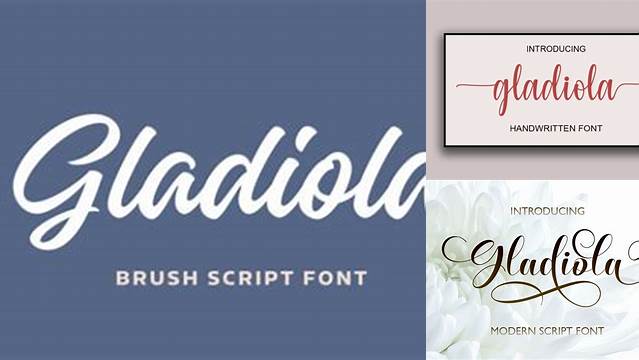
Hey guys! Are you on the hunt for that perfect gladiola brush script font to add a touch of elegance and personality to your projects? Well, you've landed in the right place! We're diving deep into the world of Gladiola brush script fonts, exploring everything from what makes them so special to where you can snag them for free. Let's get started and unleash your creative potential with this beautiful typeface! Finding the right font can be a game-changer, especially when you're aiming for a handcrafted, artistic vibe. The gladiola brush script font is renowned for its flowing lines and natural strokes, making it ideal for a variety of design applications. Whether you're working on wedding invitations, branding materials, or social media graphics, this font can add that perfect touch of sophistication and charm. So, stick around as we explore the ins and outs of this fantastic font and how you can make the most of it in your creative endeavors.
What is Gladiola Brush Script Font?
The gladiola brush script font is a typeface that mimics the look of hand-lettering done with a brush. It's characterized by its smooth, flowing strokes and elegant curves, which give it a natural and personal feel. Unlike more rigid fonts, a gladiola brush script font brings a sense of warmth and authenticity to any design. Think about those handwritten notes you cherish – the gladiola brush script font captures that same essence. This makes it perfect for projects where you want to convey a sense of intimacy and care. Imagine using it for thank-you cards, personalized gifts, or even your own signature. The versatility of this font means it can elevate a wide range of projects, adding a touch of class and creativity that’s hard to resist. Plus, with the availability of free options, it’s easier than ever to incorporate this stunning font into your designs without breaking the bank.
History and Evolution of Brush Script Fonts
The history of brush script fonts is fascinating! It traces back to traditional calligraphy and hand-lettering techniques. Over time, these techniques were adapted into digital fonts, allowing designers to replicate the handcrafted look on computers. The gladiola brush script font is part of this evolution, embodying the fluidity and expressiveness of calligraphy. Brush script fonts gained popularity in the mid-20th century, particularly in advertising and signage. Their casual yet stylish appearance made them a hit for conveying a sense of personality and flair. As technology advanced, designers began experimenting with different brush strokes and textures, leading to a diverse range of brush script fonts, including the elegant Gladiola. Today, the gladiola brush script font continues to be a favorite among designers for its versatility and timeless appeal. Its ability to blend traditional charm with modern design sensibilities makes it a valuable asset in any creative toolkit. The journey of brush script fonts from ink and paper to digital screens is a testament to the enduring allure of handcrafted aesthetics.
Key Features of Gladiola Brush Script Font
What makes the gladiola brush script font stand out? It's all about the details! This font boasts smooth, flowing lines that mimic the natural movement of a brush. Its elegant curves and varying stroke widths create a dynamic and eye-catching effect. The gladiola brush script font often includes ligatures and alternate characters, adding to its handcrafted feel. Ligatures are those beautiful connections between letters, while alternate characters offer different stylistic options for certain letters. These features give you more flexibility and control over the final look of your text. Another key feature is its legibility. While some script fonts can be difficult to read, the gladiola brush script font strikes a balance between style and clarity. This makes it suitable for both headlines and body text, though it shines particularly in larger sizes. Overall, the gladiola brush script font is characterized by its graceful appearance, attention to detail, and versatility, making it a top choice for designers seeking a touch of elegance.
Using Gladiola Brush Script Font for Personal Projects
The gladiola brush script font is fantastic for personal projects! Think about all the ways you can use it to add a special touch to your life. Creating personalized greeting cards? This font is perfect for conveying heartfelt messages. How about designing your own invitations for a birthday party or a cozy get-together? The elegant script will set the tone perfectly. If you're into journaling or scrapbooking, the gladiola brush script font can make your entries look even more beautiful and personal. Imagine writing out your favorite quotes or adding captions to your photos with this stylish font. And let's not forget about DIY crafts! You can use it for custom labels, gift tags, or even to create personalized wall art. The possibilities are endless when you have such a versatile font at your fingertips. So go ahead, get creative, and let the gladiola brush script font add a touch of sophistication to your personal projects. It's all about making things uniquely you!
Utilizing Gladiola Brush Script Font for Commercial Use
For those of you working on commercial projects, the gladiola brush script font can be a real asset. It's ideal for branding, marketing materials, and advertising campaigns. Imagine using it for your logo design – the elegant script can convey a sense of sophistication and personality. It's also perfect for creating eye-catching headlines and taglines that grab attention. Think about designing business cards, brochures, or social media graphics. The gladiola brush script font can help your brand stand out from the crowd. When using fonts for commercial purposes, it's crucial to check the licensing terms. Make sure the free version you've downloaded allows commercial use, or consider purchasing a commercial license to avoid any legal issues. The right font can make a big difference in how your brand is perceived. With its flowing lines and handcrafted feel, the gladiola brush script font can add a touch of warmth and authenticity to your commercial projects. So go ahead, give it a try, and see how it can elevate your brand's visual identity!
Designing Logos with Gladiola Brush Script Font
Designing logos with a gladiola brush script font can give your brand a unique and memorable identity. The flowing, handwritten style of this font adds a personal touch that can make your logo stand out. When using a script font for a logo, it's important to ensure it's legible and scalable. While the gladiola brush script font is generally quite clear, you might need to adjust the letter spacing or size to make it work perfectly in a logo. Consider pairing it with a simpler, more geometric font for the rest of your branding materials to create a balanced look. Think about the message you want your logo to convey. A brush script font like Gladiola often suggests creativity, elegance, and a handcrafted feel. This makes it particularly suitable for brands in industries like fashion, beauty, or artisanal goods. Experiment with different variations and weights of the font to find the perfect fit for your brand. And don't forget to test your logo in various sizes and contexts to ensure it looks great everywhere, from business cards to website headers. With a little creativity, the gladiola brush script font can help you create a logo that truly represents your brand.